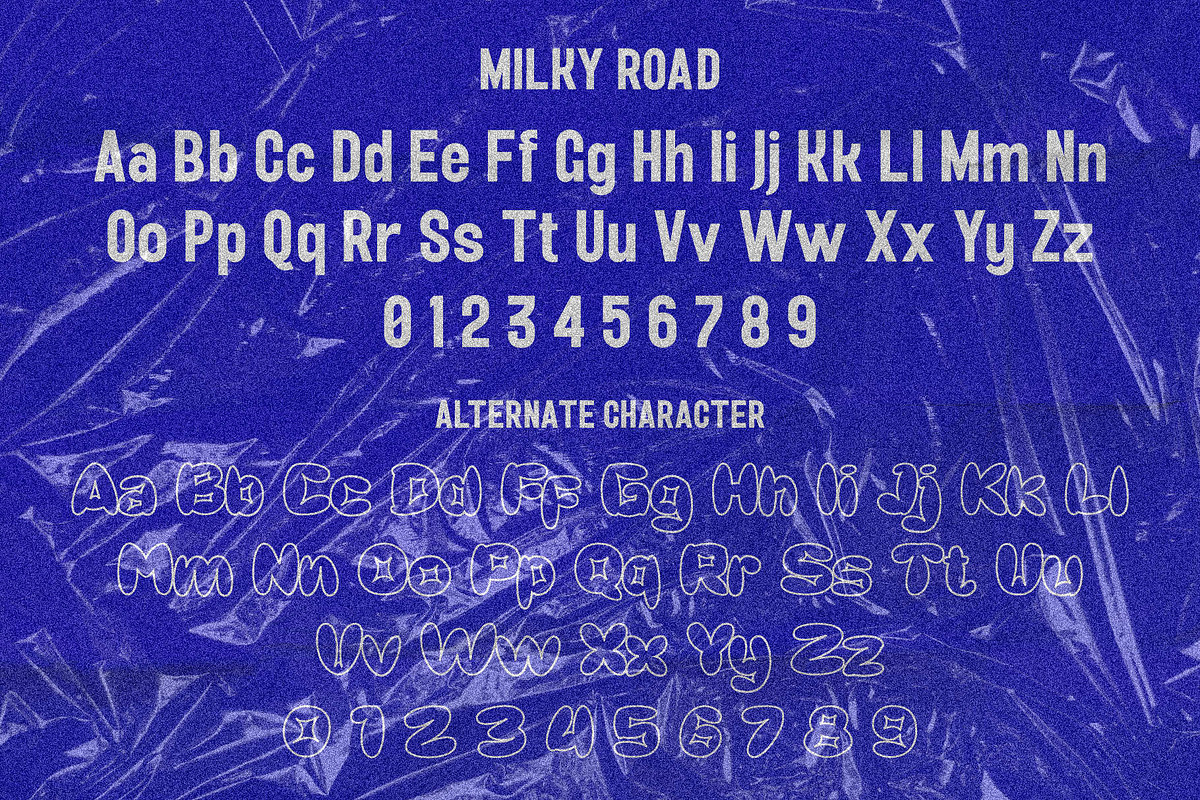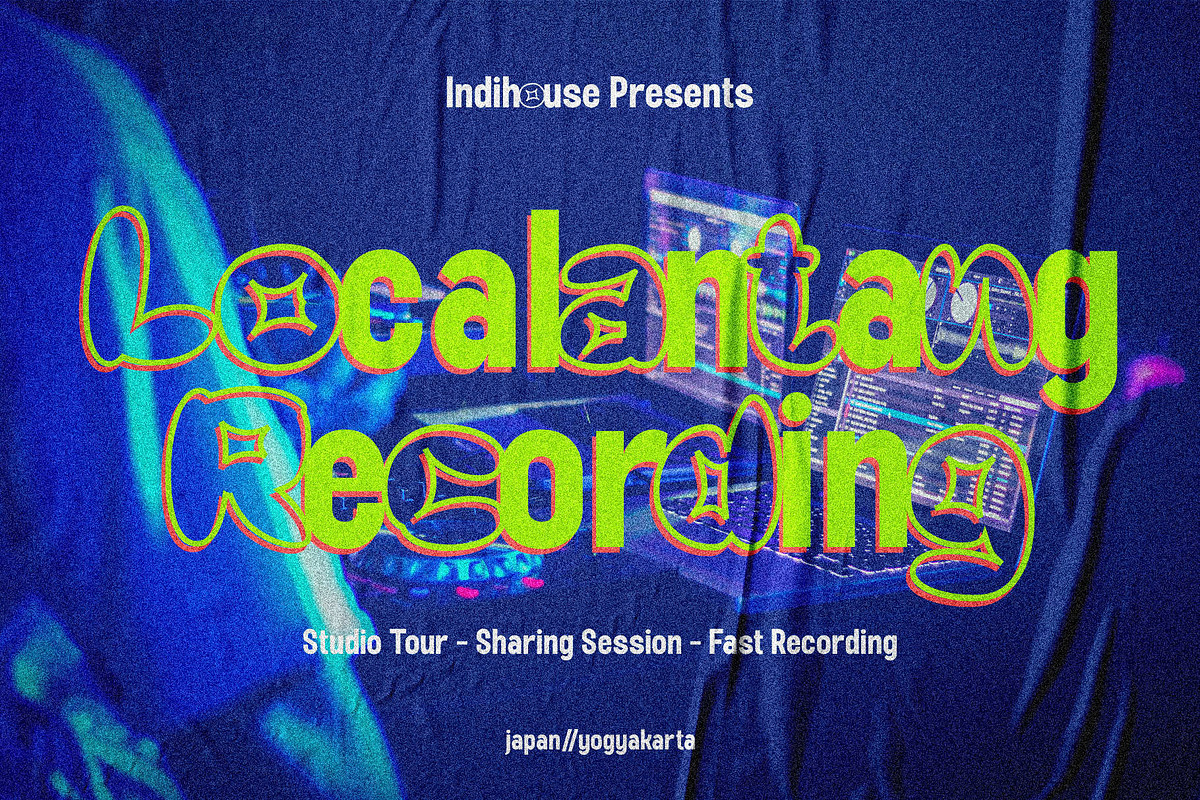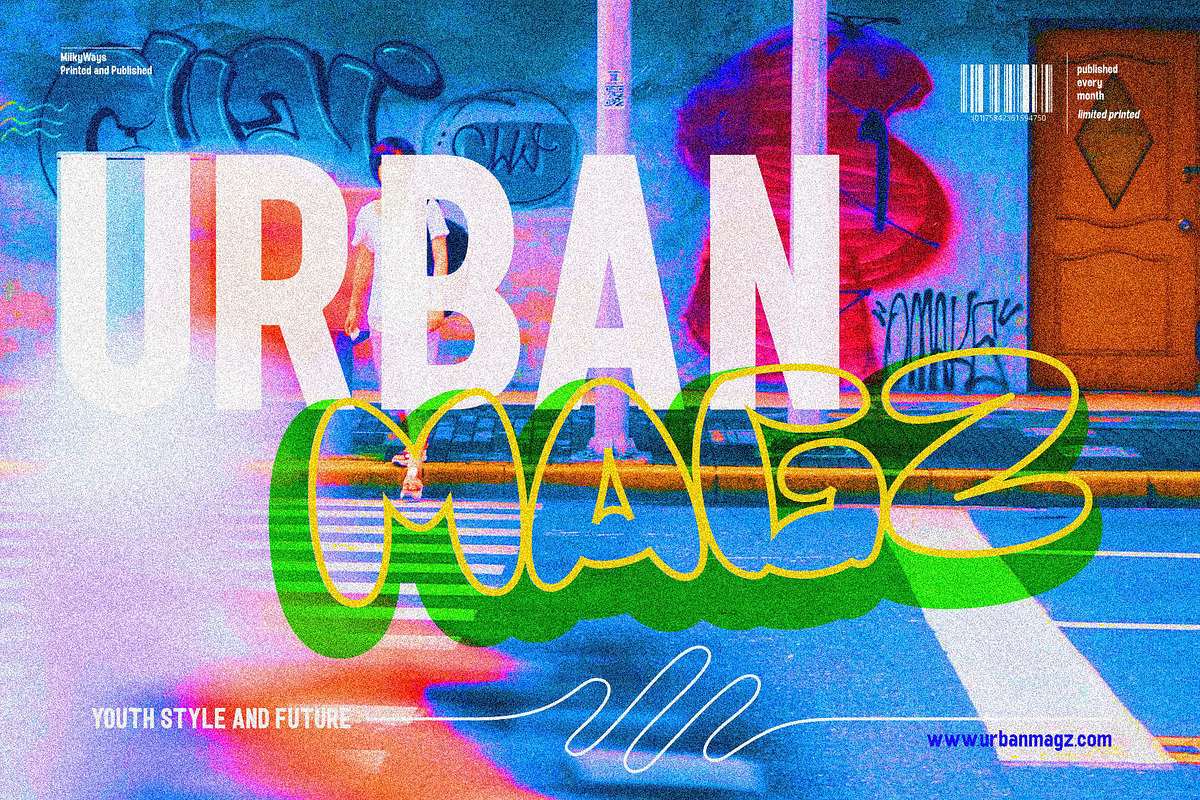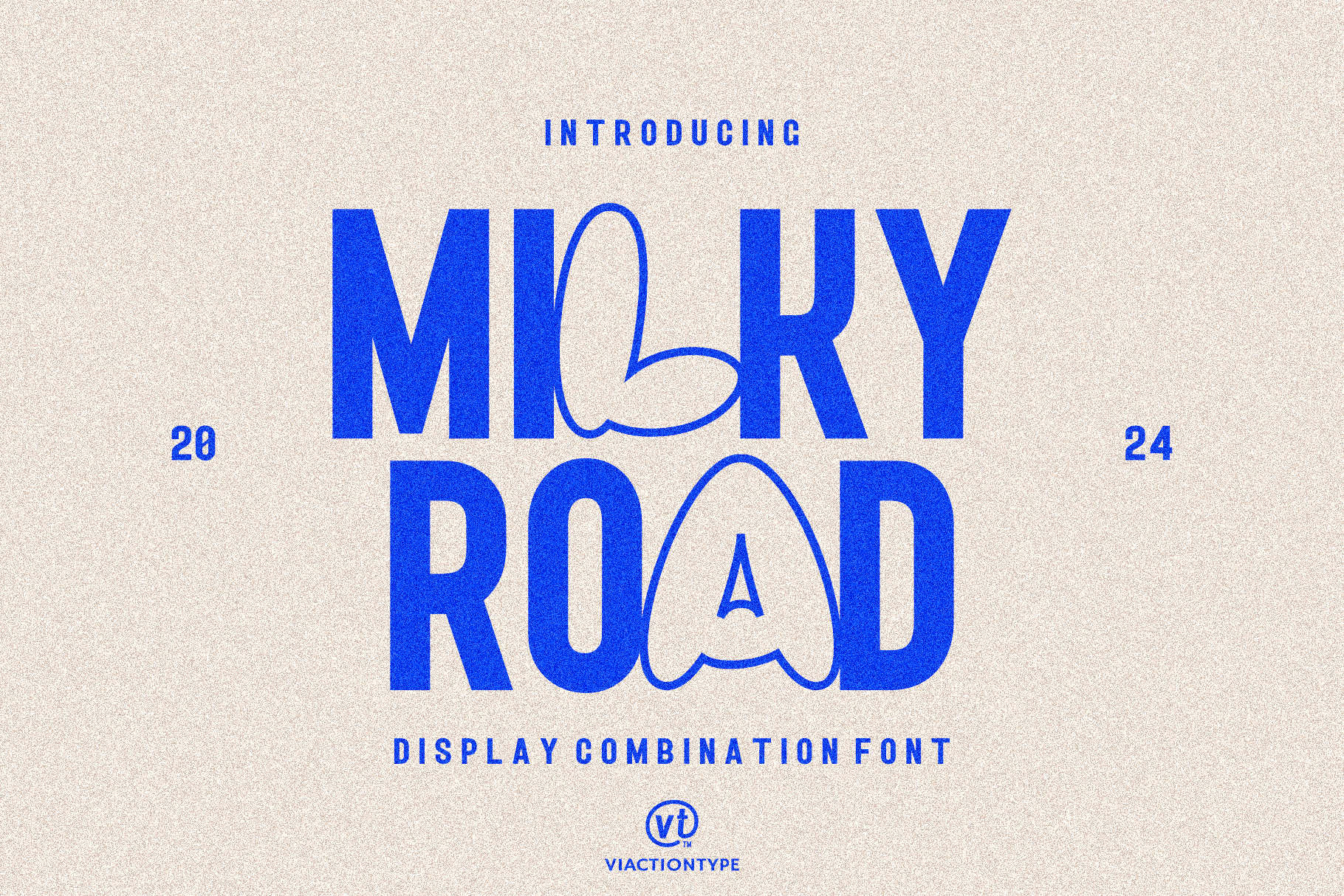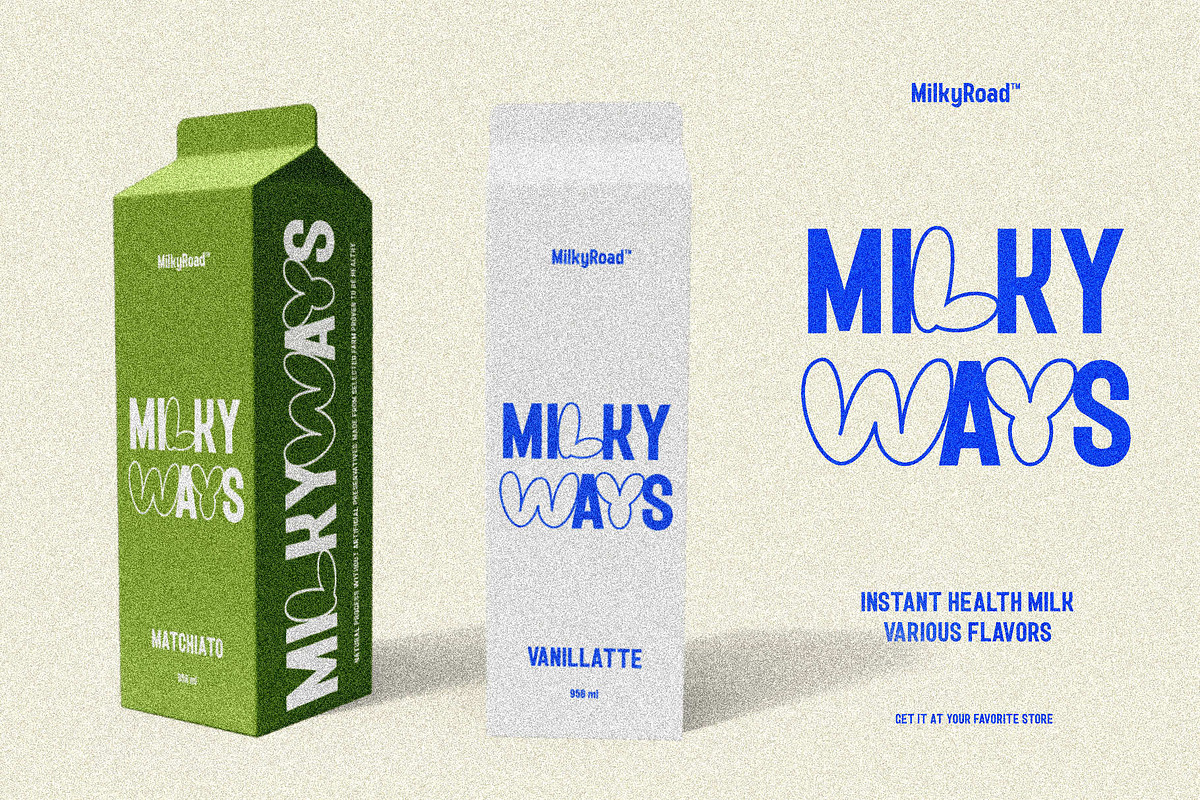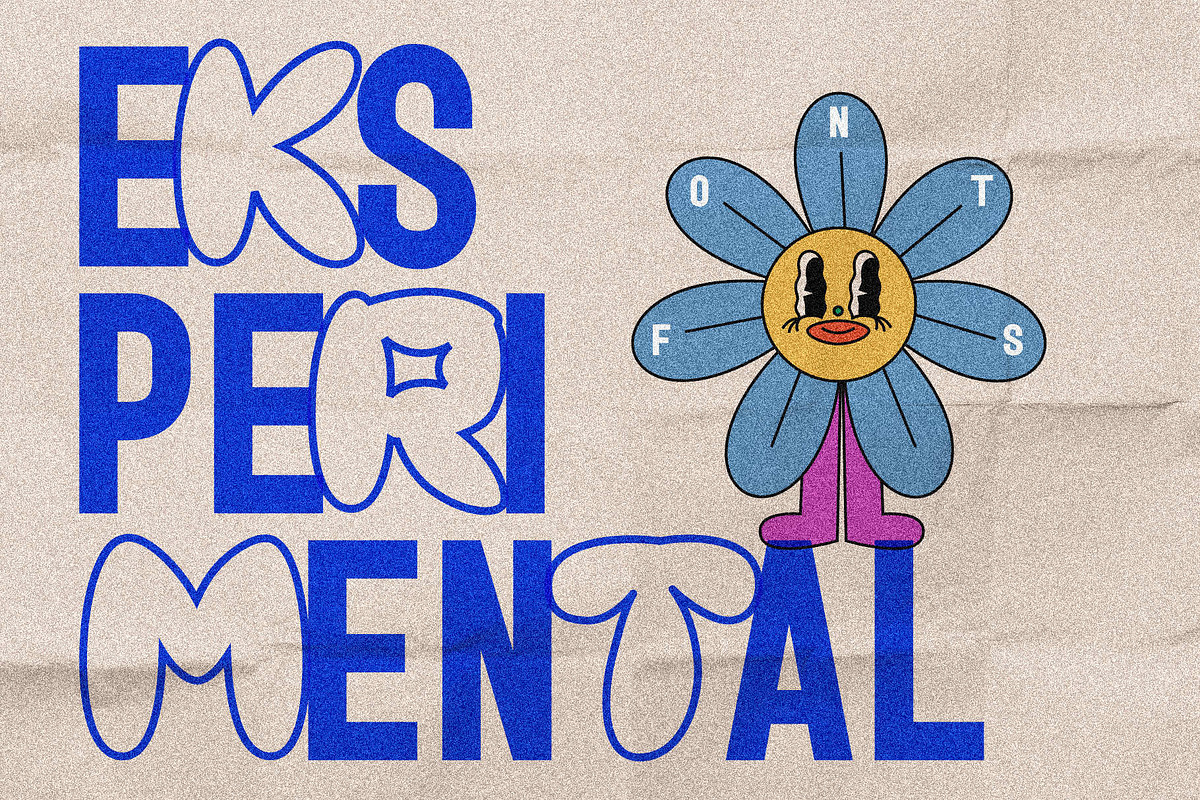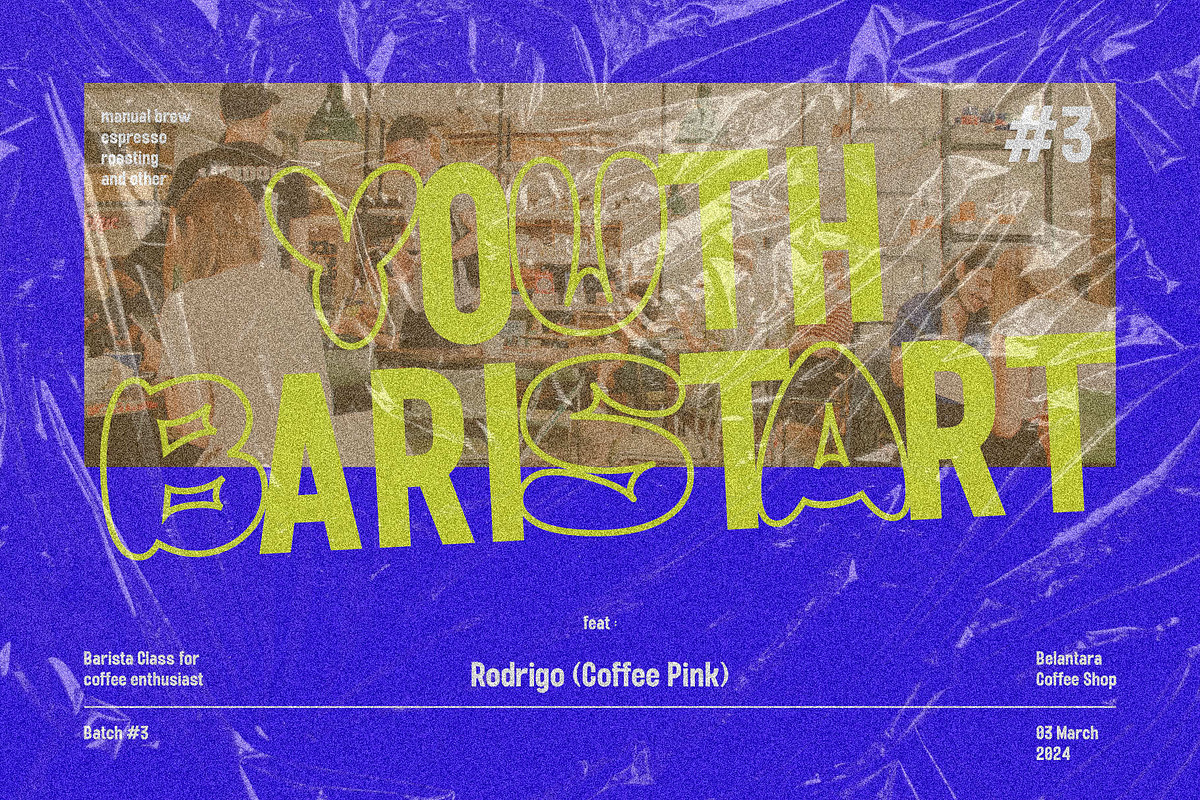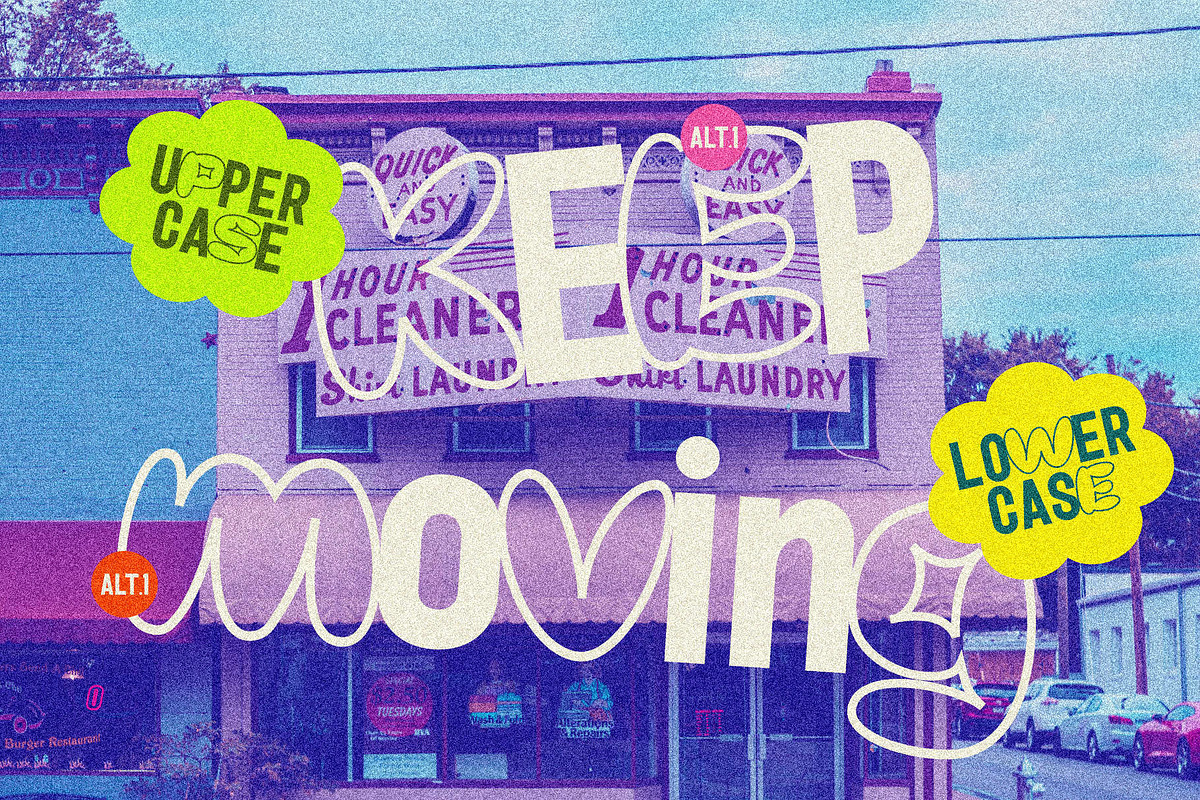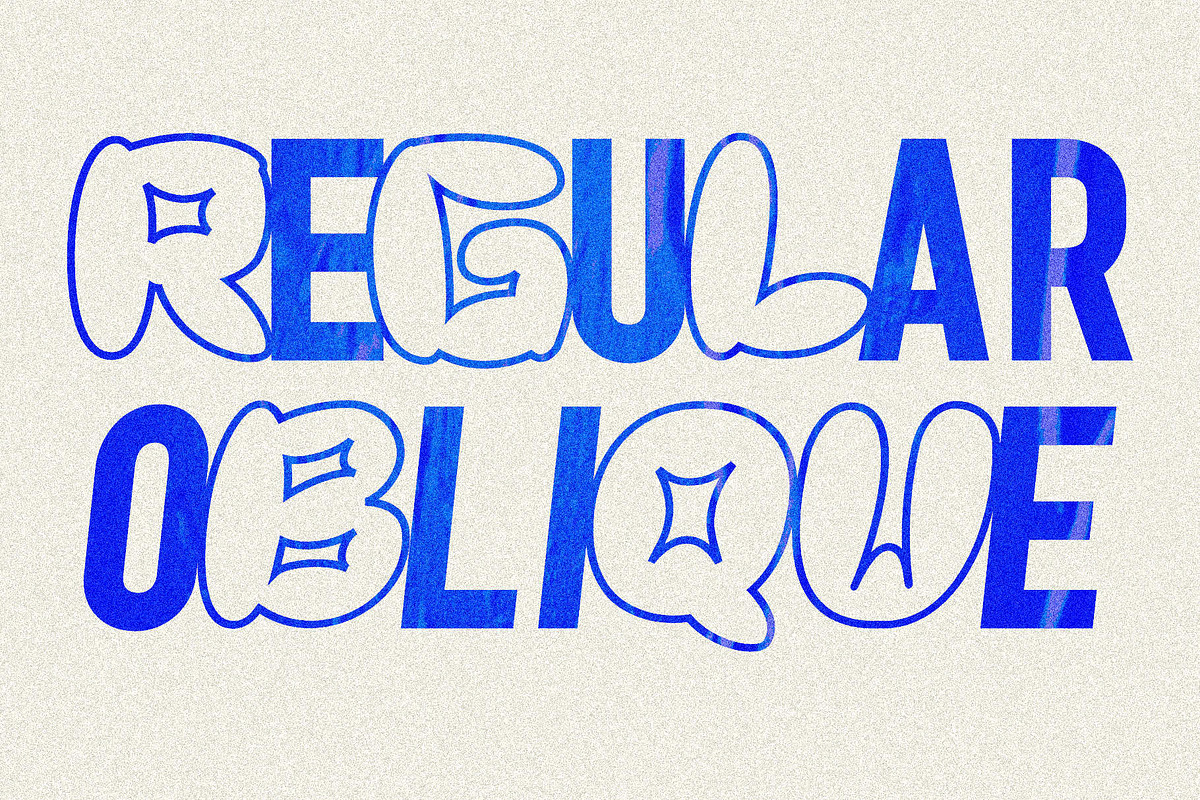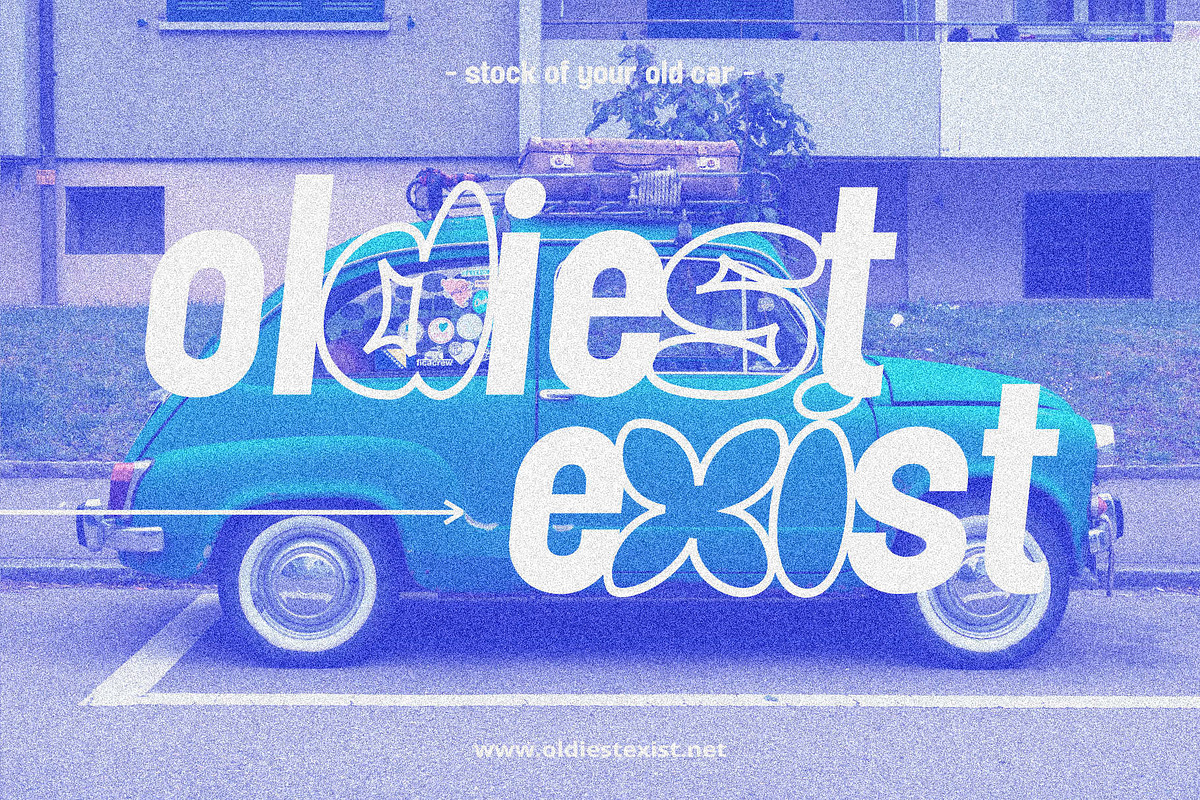
VT Milky Road - Font Combination
Introducing our Unique Sans Serif Typeface Fusion: Milky Road - Eksperimental Combination Font. Elevate your design projects with the perfect blend of modern sophistication and playful charm through our latest creation, Milky Road - Eksperimental Combination Font. This cutting-edge font seamlessly combines the sleek professionalism of a classic sans-serif with the bubbly exuberance of a distinctive bubble font. Crafted with precision and innovation, Milky Road - Eksperimental Combination Font is set to redefine your typographic experience.
Harmonious Fusion: Witness the seamless integration of clean, sans-serif lines with the delightful curves of a bubble font, striking a perfect balance between professionalism and playfulness.
Versatile Applications: Milky Road - Eksperimental Combination Font is designed to enhance a myriad of design projects, from websites and branding materials to marketing collateral and social media graphics, ensuring your content stands out in the digital landscape.
Readability Redefined: Experience exceptional readability across various platforms and sizes, ensuring your message remains clear and impactful, whether it's on a website, print material, or mobile device.
Distinctive Personality: The unique character of Milky Road - Eksperimental Combination Font adds a touch of individuality to your projects, making them memorable and instantly recognizable.
Discover the perfect synergy of sophistication and whimsy with Milky Road - Eksperimental Combination, the avant-garde sans-serif font that seamlessly incorporates the charm of bubble typography. Elevate your digital presence and captivate your audience with this versatile typeface designed for optimum readability across platforms. Enhance your brand's visual identity and leave a lasting impression with Milky Road - Eksperimental Combination Font – where professionalism meets playfulness in a font like no other.